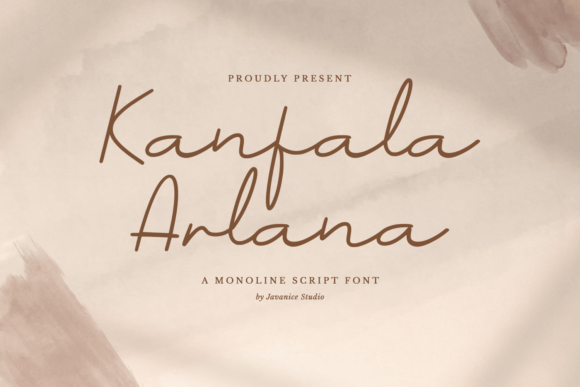
Journey into the realm of elegance and creativity with Kanfala Arlana, a monoline script font that captivates the senses and breathes life into your visual creations. Its delicate strokes, reminiscent of a calligrapher's masterful hand, dance across the page, evoking a sense of timeless beauty and sophistication.
Immerse yourself in the boundless possibilities of Kanfala Arlana, a font designed to ignite your imagination and elevate your designs to new heights. Whether you're a seasoned creative professional or just starting your artistic journey, this font will become your trusted companion, guiding you toward extraordinary outcomes.
With its meticulously crafted curves and flourishes, Kanfala Arlana adds a touch of refinement and grace to any project. Its versatility shines through in its ability to adapt seamlessly to a wide range of applications, from branding projects and apparel designs to magazine layouts and wedding invitations.
Step into a world where words come alive, where every letter carries the weight of emotion and the power to captivate. Kanfala Arlana is more than just a font; it's an artistic expression that transforms your designs into captivating masterpieces, leaving an indelible mark on the hearts of your audience.
Embrace the allure of Kanfala Arlana and embark on a creative odyssey that knows no bounds. Let your imagination soar as you craft designs that resonate with your audience, leaving them spellbound by your artistic prowess.